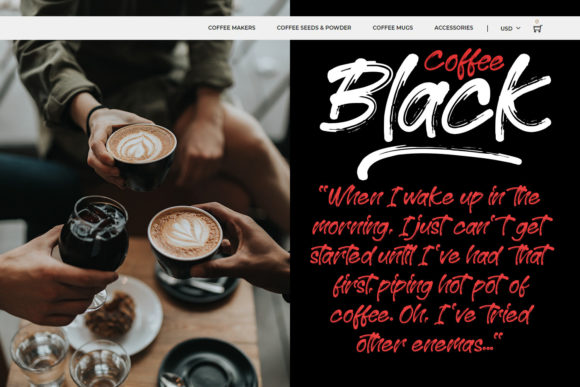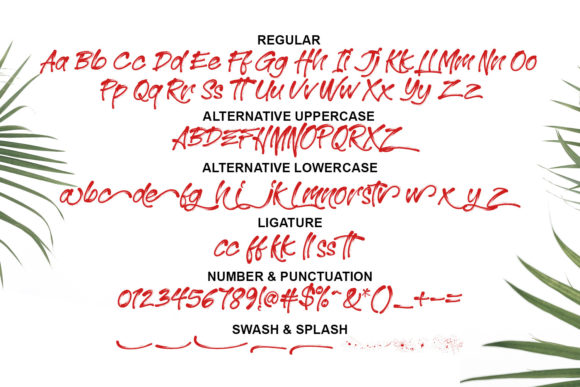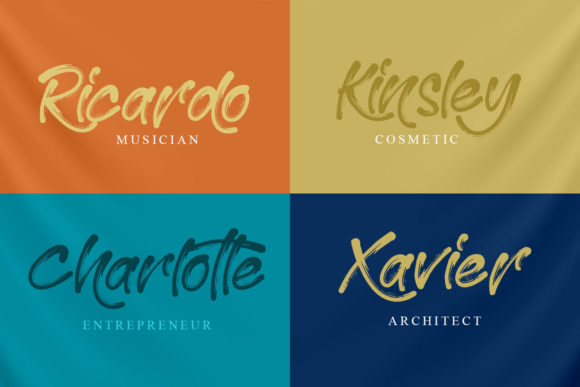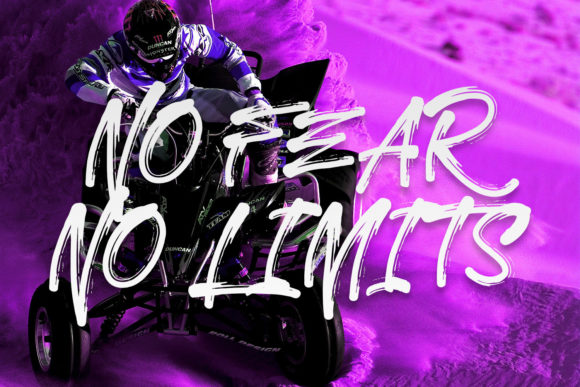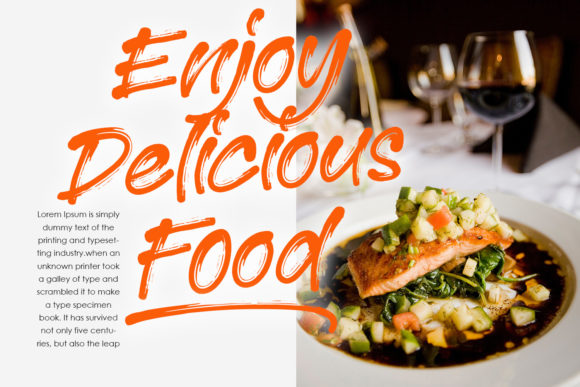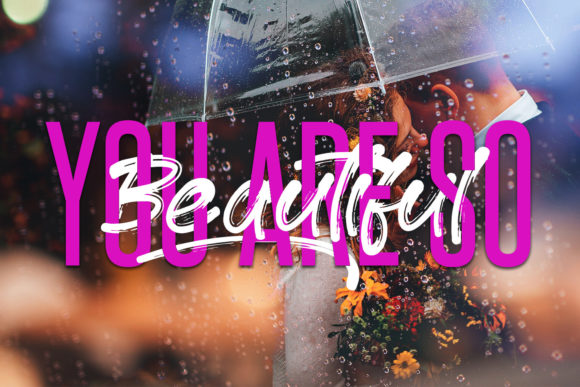
Introduction to Morrissey Font
Imagine you’re working on a creative project, and you need a font that captures the essence of a relaxed, laid-back vibe. You’re browsing through your design resources, searching for that perfect combination of style and sophistication. Suddenly, you stumble upon the Morrissey Font, and everything clicks into place.
As a designer, you know that the right font can make all the difference in conveying your message and setting the tone for your project. That’s where the Morrissey Font comes in – a high-quality, handwritten font that exudes a cool, casual charm. With its transparent background and smooth, flowing lines, this font is perfect for creating a design that’s both modern and approachable.
Key Features of Morrissey Font
- Transparent background for versatile use in various design applications
- Unique, elegant font style with a touch of sophistication
- Perfect for use in headings, titles, and body text in creative projects requiring a stylish touch
Honest Review: Morrissey Font
I recently stumbled upon the Morrissey Font and was excited to dive in and see what it had to offer. As a designer, I’m always on the lookout for high-quality design resources to elevate my creative projects. The Morrissey Font did not disappoint.
One of the standout features of this font is its high-quality, modern aesthetic. The clean lines and sophisticated design make it perfect for a wide range of creative projects, from logos to typography-based designs.
Here are some of the things that work well about the Morrissey Font:
- ✨ Modern and sophisticated design
- ✨ High-quality and crisp typography
- ✨ Transparent background, allowing for seamless integration with any design
- ⚠️ Limited font weights and styles available (would be nice to see more options)
- ⚠️ Not ideal for use in small text sizes, as it can appear blurry
Overall, I’m impressed with the Morrissey Font and would recommend it to designers looking for a high-quality, modern font to add to their design arsenal. With a few tweaks to address the limitations, I have no doubt this font will become a go-to resource for many creatives.
The Morrissey Font is ideal for a variety of design projects, including logos, posters, and business cards. Its high-quality design features and transparent background make it a versatile and effective design resource.